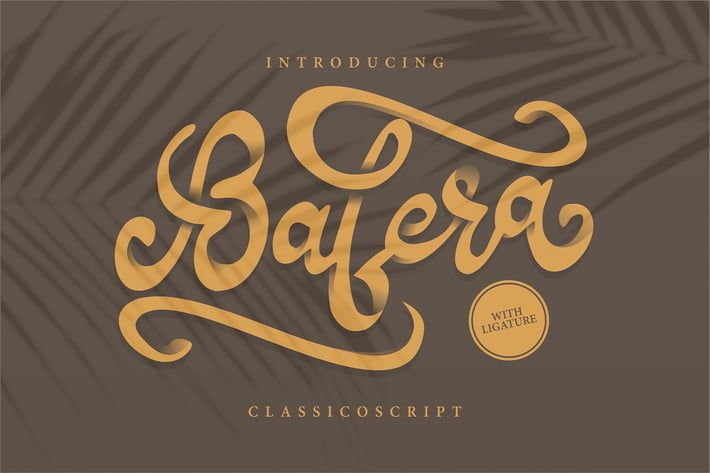
Bafera | Classico Script Font
Bafera | Classico Script Font with a calligraphy style, So beautiful on invitation like greeting cards, branding materials, business cards, quotes, posters, and more!